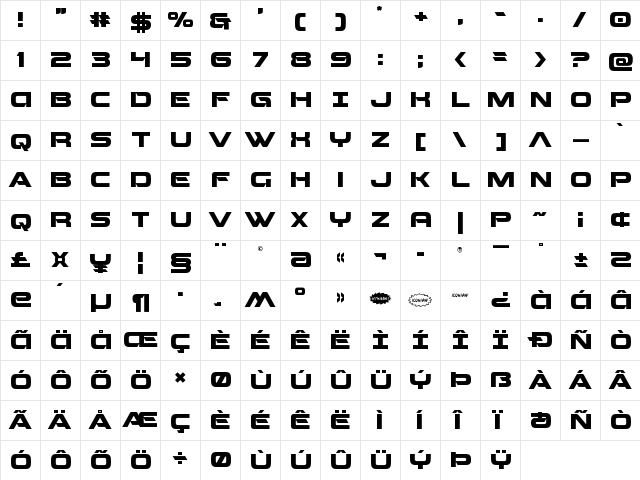
Beam Weapon Regular Font Preview
Beam Weapon Regular
Beam Weapon Regular Font Details
Design Context for Beam Weapon Typeface
Beam Weapon is a composed and adaptable typeface that performs quietly and consistently across a wide range of design contexts.